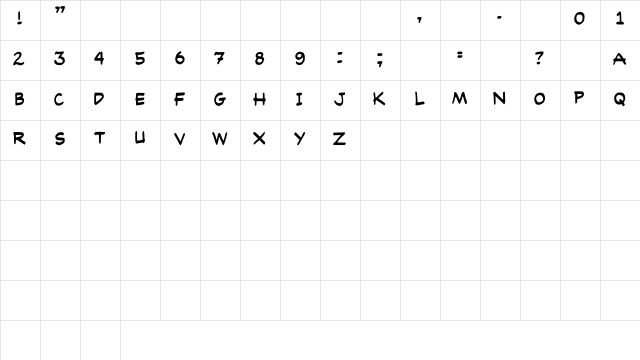
Prismacolor_Marker_Font Medium
Design Context for Prismacolor_Marker_Font Typeface
Prismacolor_Marker_Font takes a measured approach to typography — its balanced proportions and neutral character make it a reliable workhorse for both digital and print work.